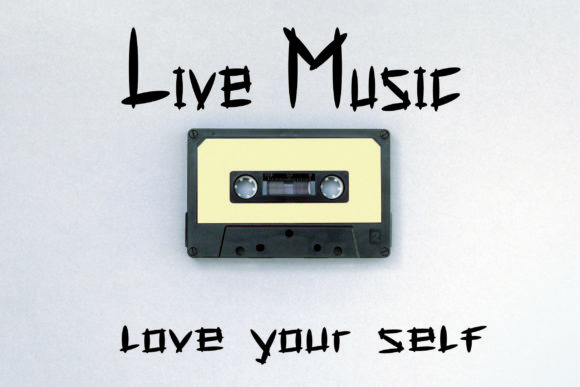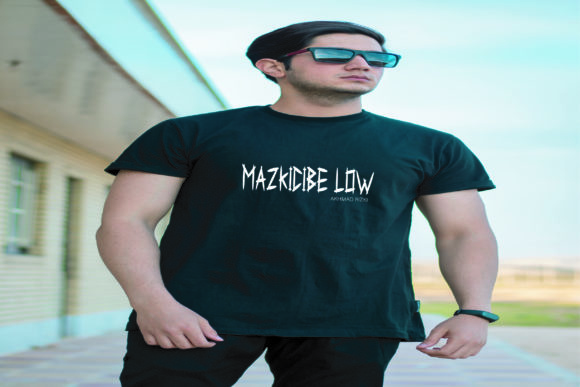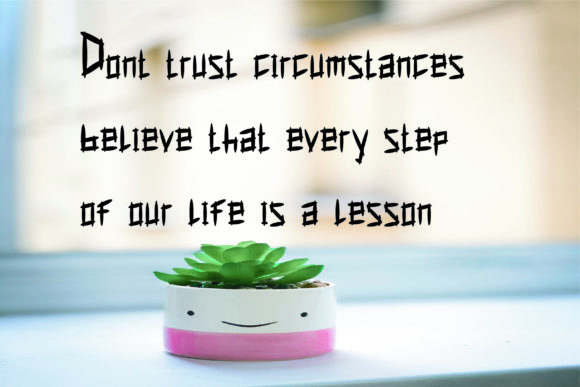
Introduction to SEMPOL Font Font
Fonts play a crucial role in design, and the SEMPOL Font font is a typeface that brings both character and versatility to any project. Whether you’re working on a branding project, a website, or a print design, the SEMPOL Font font offers a unique style that can elevate your work.
| 👤 Author | AleraStd. |
SEMPOL font: Modern & Display Font font to make every word you make more eye-catching.
Great for social media post designs, branding, merchandise, posters, comics, display, etc Sempol font is a font that is inspired by the combination of sempol, which is a typical snack from Indonesia that is combined into a letter Features: Uppercase, Lowercase, Obtained file format: Otf & Ttf.
Key Features of SEMPOL Font Font
Why Choose SEMPOL Font Font?
The SEMPOL Font font is more than just a typeface – it’s a design tool that helps you communicate your message with style and clarity. Its unique character set and versatile design make it suitable for a wide range of applications, from elegant invitations to bold headlines.
With its carefully crafted letterforms and balanced proportions, the SEMPOL Font font ensures readability and visual appeal across all mediums.
What makes SEMPOL Font font special?
The SEMPOL Font font stands out with its unique design, exceptional readability, and versatility across various design applications.